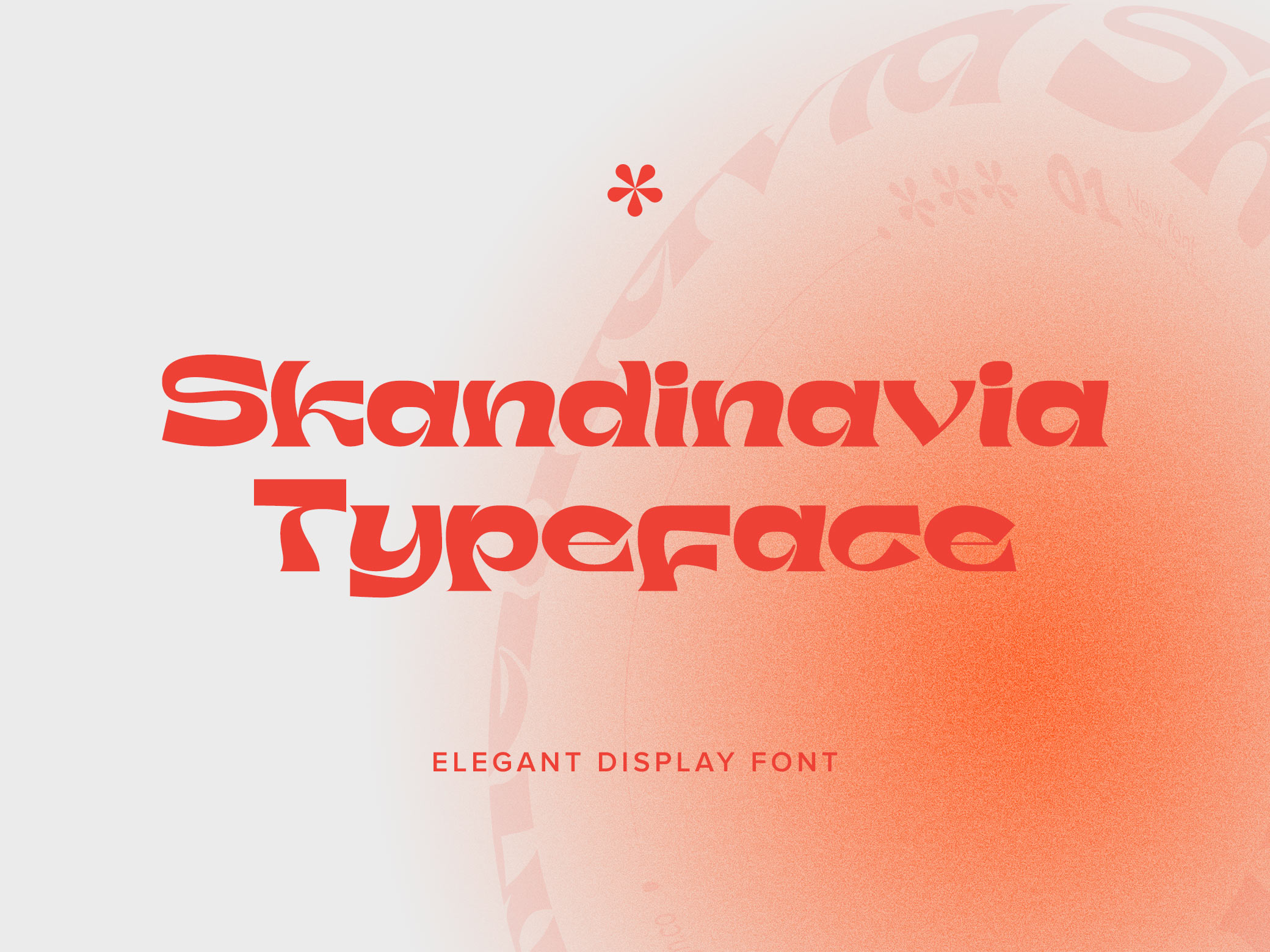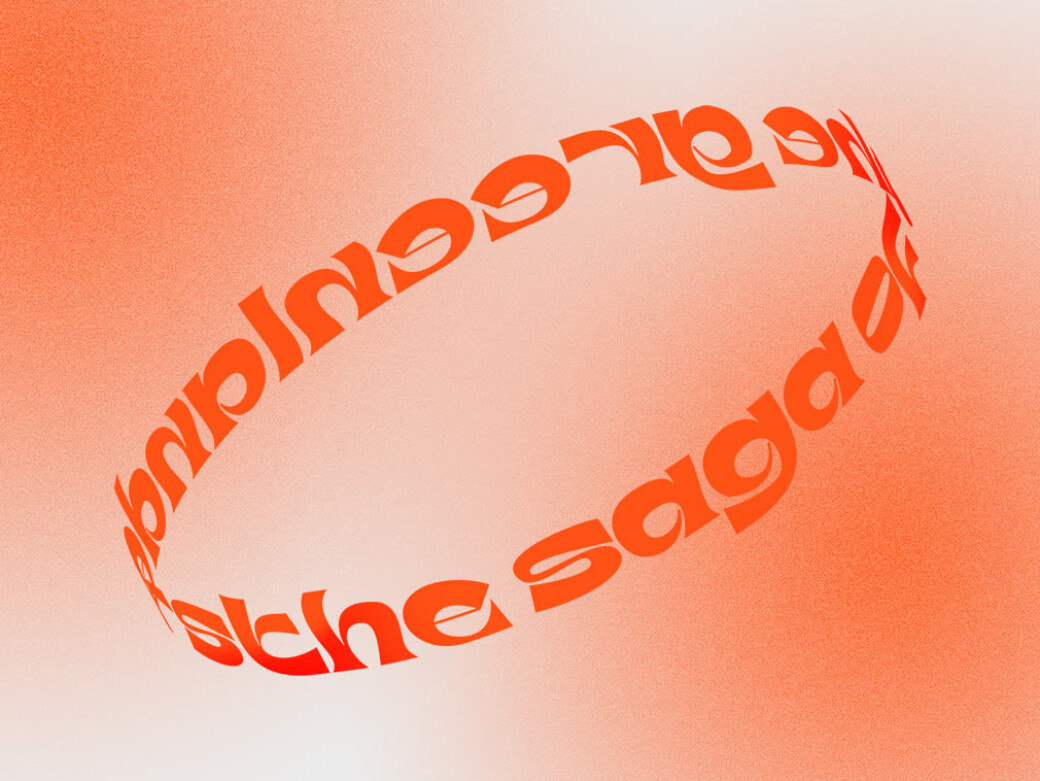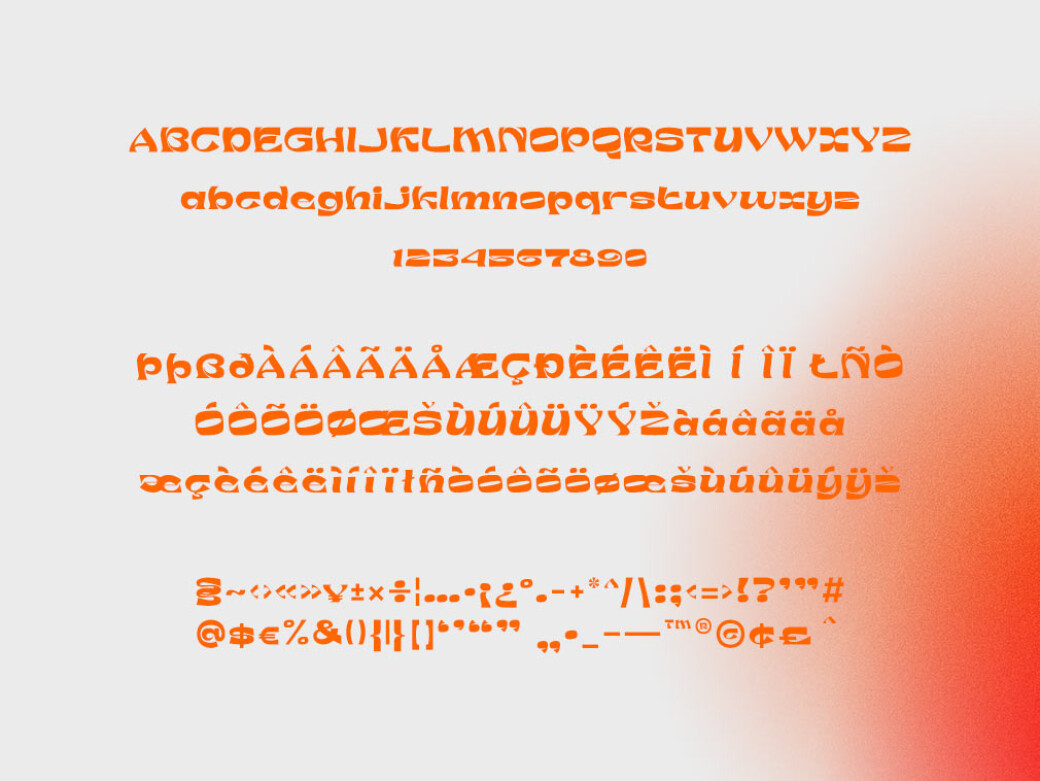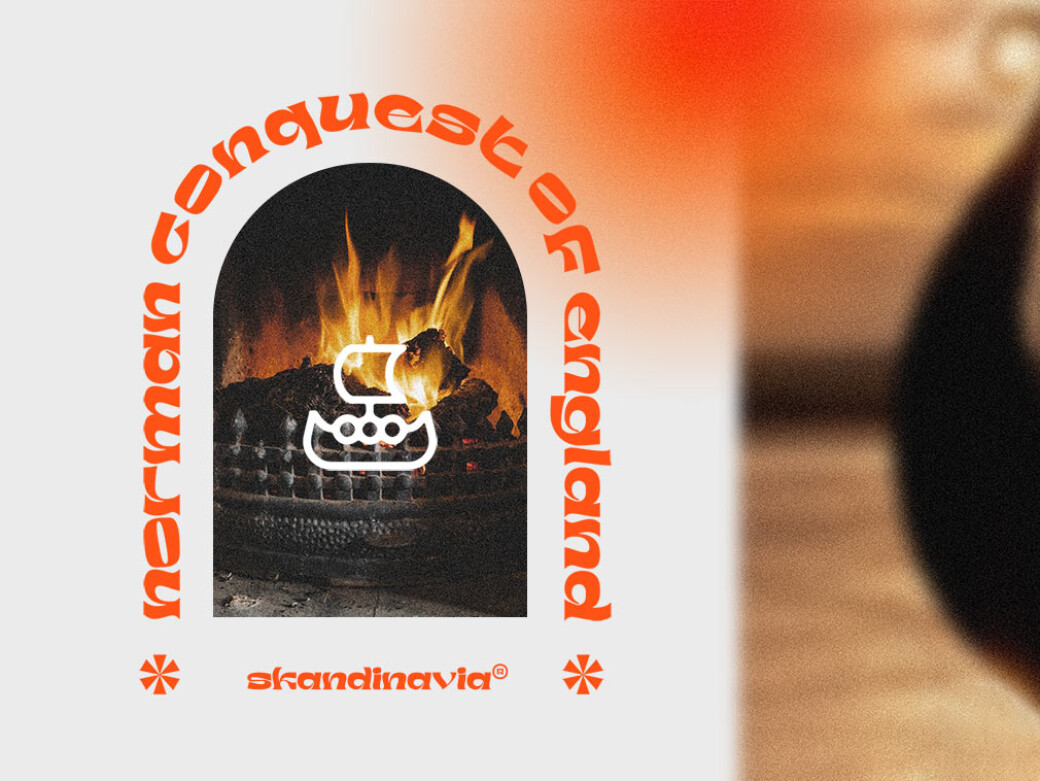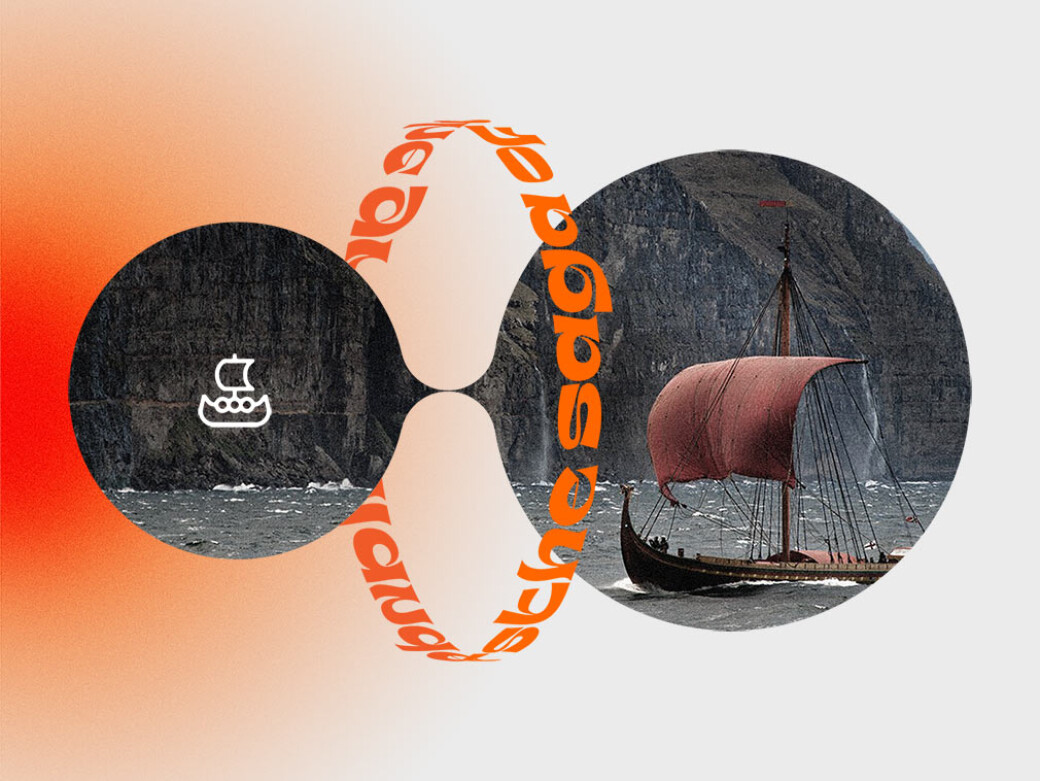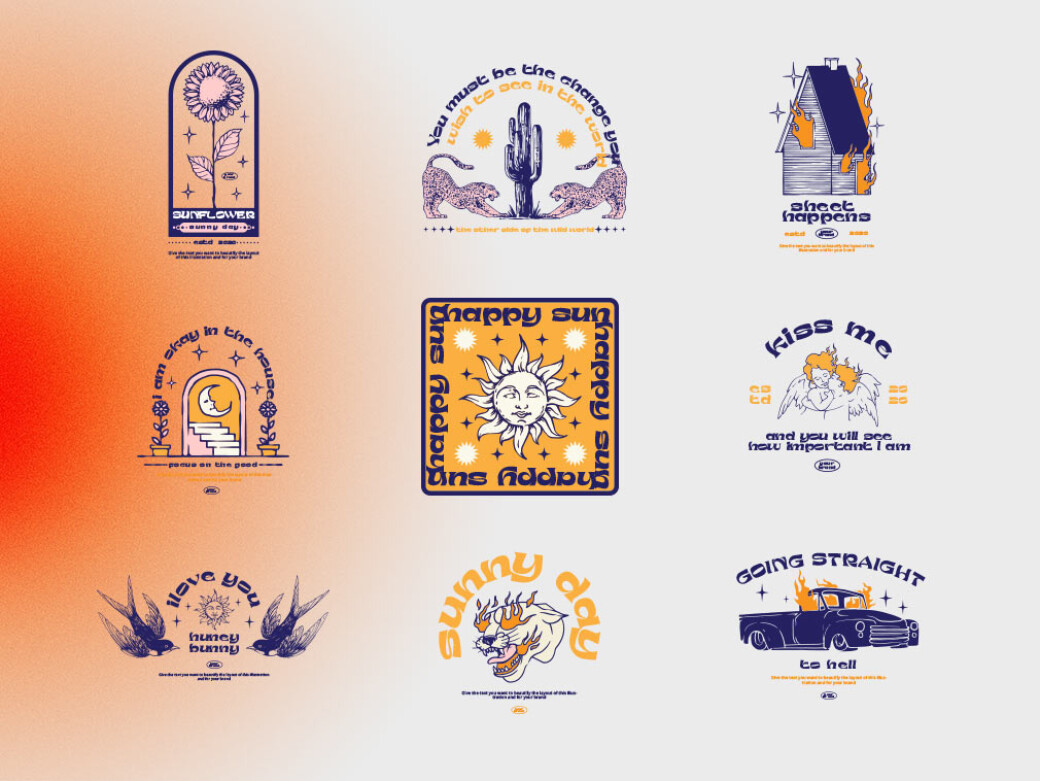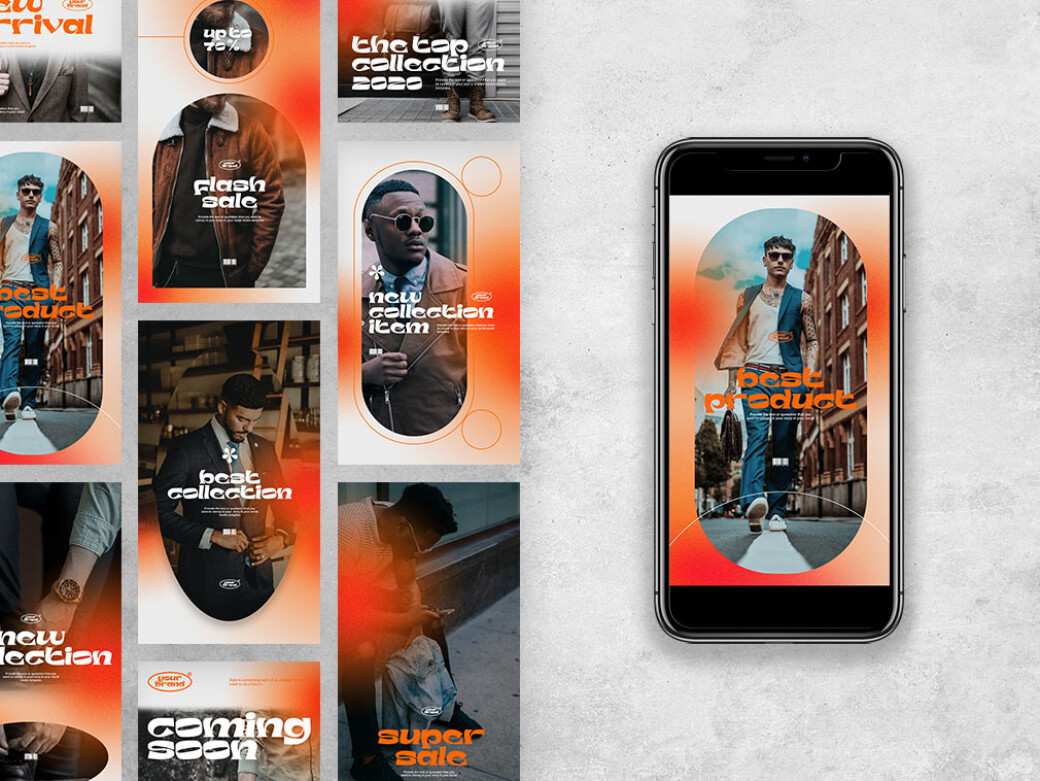
Skandinavia Display Font
Keeping pace with the times, getting Skandinavia for your collection would be a wise investment in the visual imagery of future projects. Contemporary style, spiced with cultural heritage!Skandinavia perfectly fits nostalgic moodboards and vintage logos. It comes with unique lowercase and uppercase letters plus numbers, punctuation marks & multilingual letters. Let the font wallow in themed additional elements included in the pack, such as social media templates, illustrations and stickers that you can easily edit according to your needs. We can already see Skandinavia's lettering as an animated element of your landing page or a fashion event promotion banner decoration!